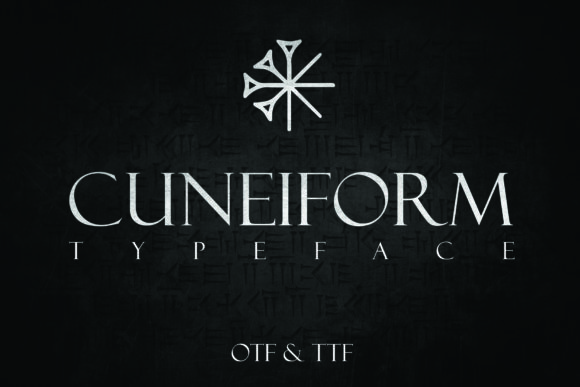
Journey into a world of ancient allure with Cuneiform Font, a decorative masterpiece crafted to transport your designs to an era of mystique and enchantment. Inspired by the enigmatic scripts of old runes, Cuneiform possesses an air of arcane knowledge and forgotten histories.
Unleash your creativity and embark on a visual adventure as you harness the power of Cuneiform to cast spells on your audience. With its intricate characters and enchanting letterforms, Cuneiform transforms ordinary words into captivating incantations, invoking a sense of wonder and awe.
Imagine your designs adorned with Cuneiform's alluring glyphs, captivating your audience with a captivating visual symphony. Let your words dance across the page, imbued with the magic of ancient civilizations. Whether you're conjuring logos, weaving invitations, or crafting social media spells, Cuneiform will leave an indelible mark on your creations.
Each character in Cuneiform is a portal to a forgotten realm, whispering tales of forgotten heroes and legendary quests. Its distinct letterforms possess an ethereal beauty, resembling ancient runes carved into stone tablets. As your designs take shape, they'll radiate an aura of mystery and enchantment, leaving your audience spellbound.
Don't settle for ordinary fonts. Embrace the allure of Cuneiform and let your imagination run wild. Unlock the secrets of ancient civilizations and weave your own tales of visual wonder. Let Cuneiform be your wand, and your designs the canvas upon which you paint your masterpieces.